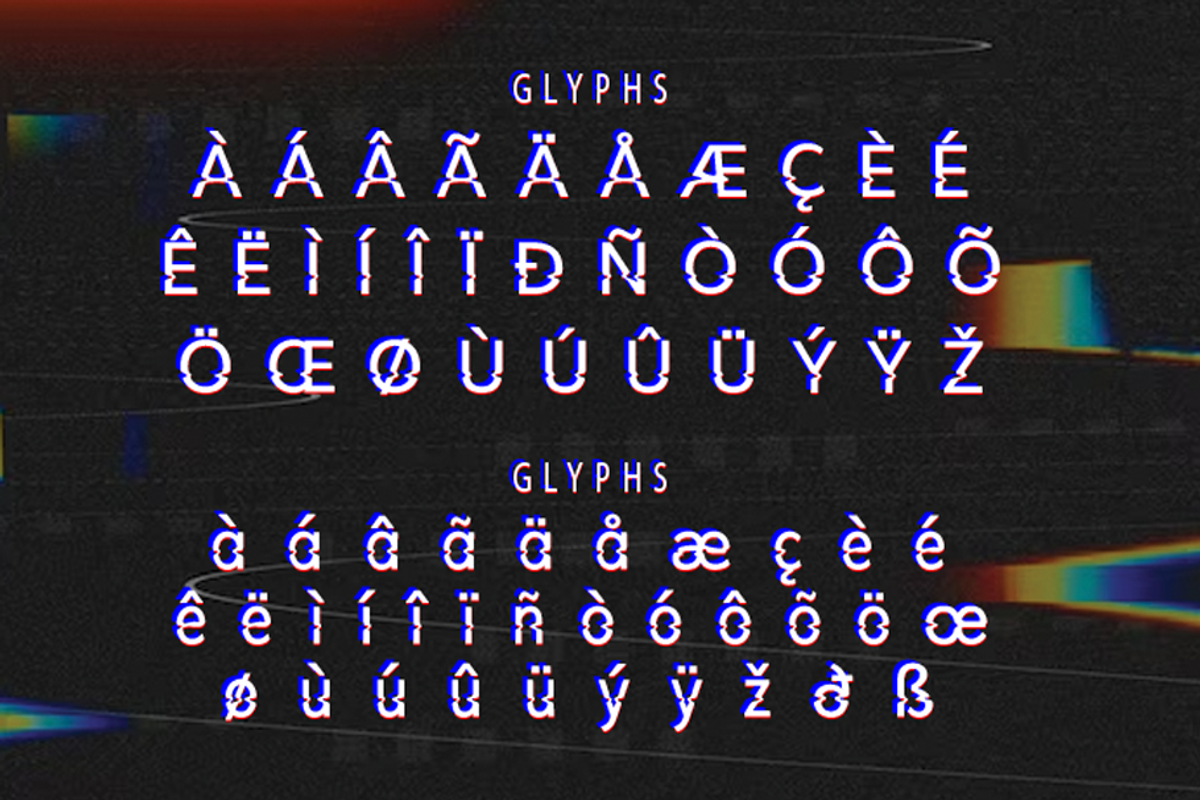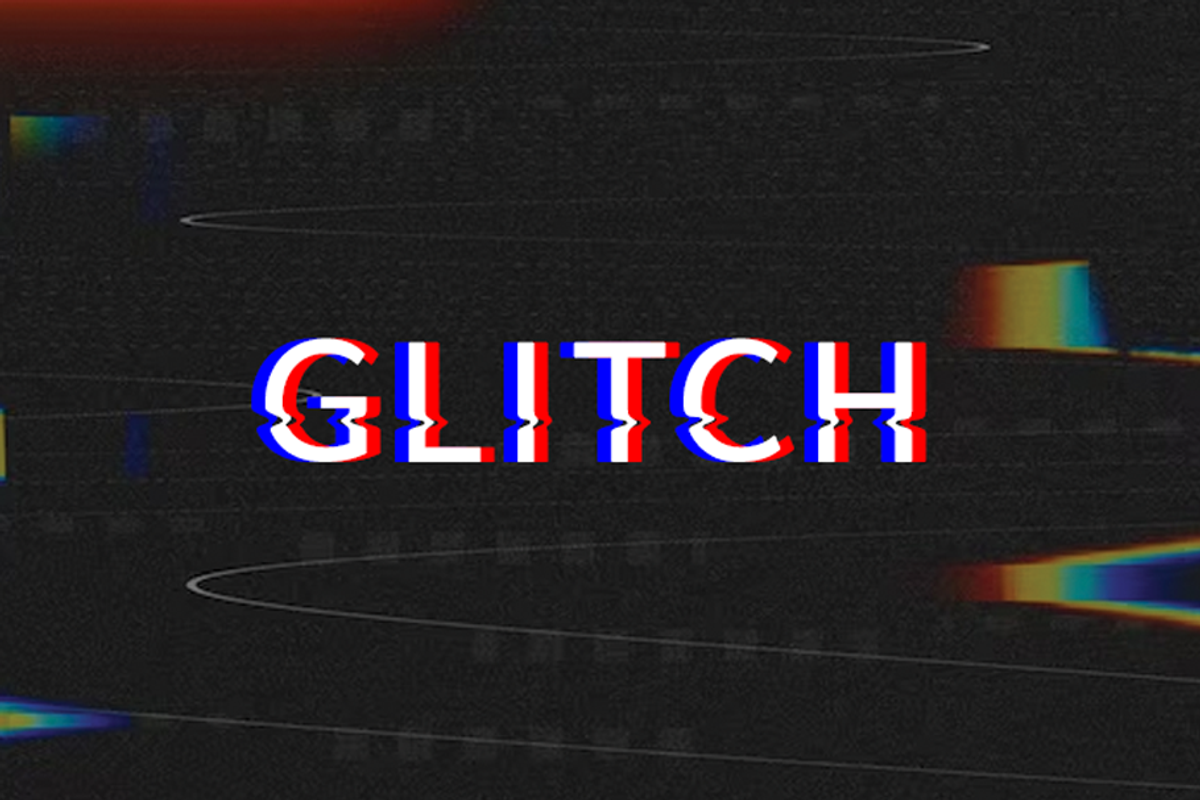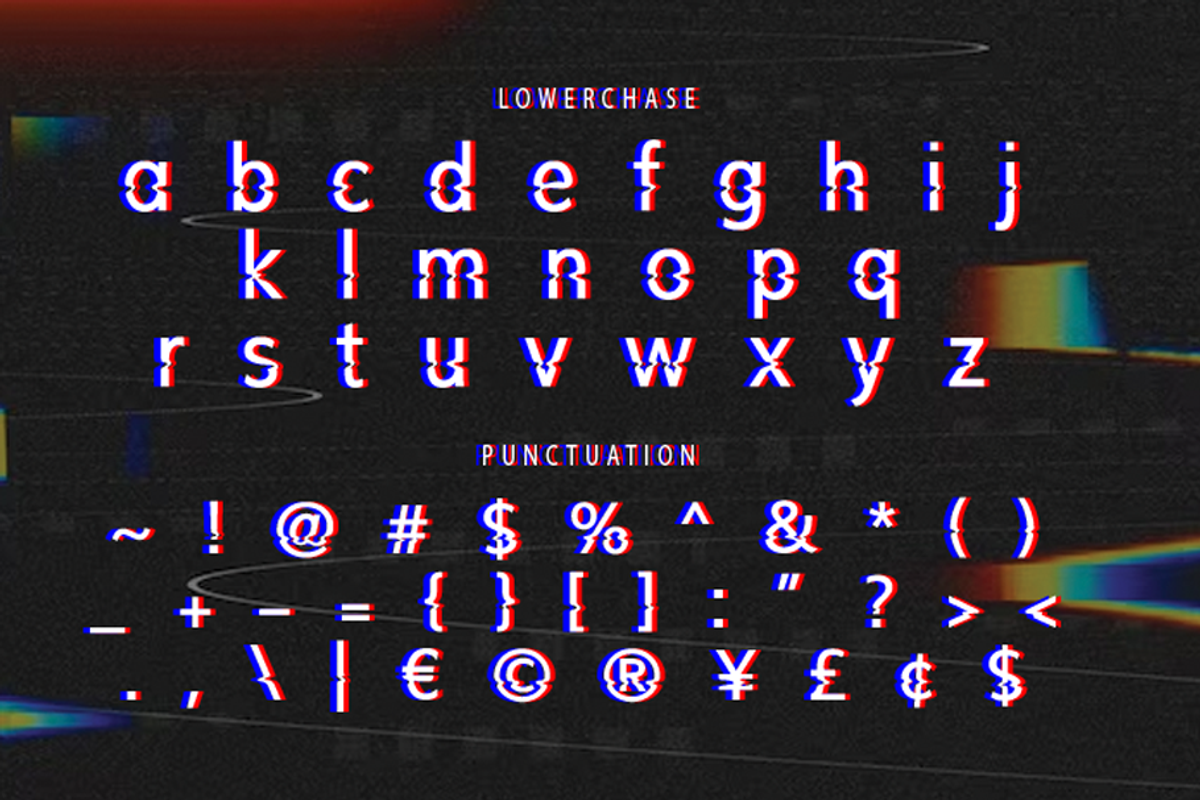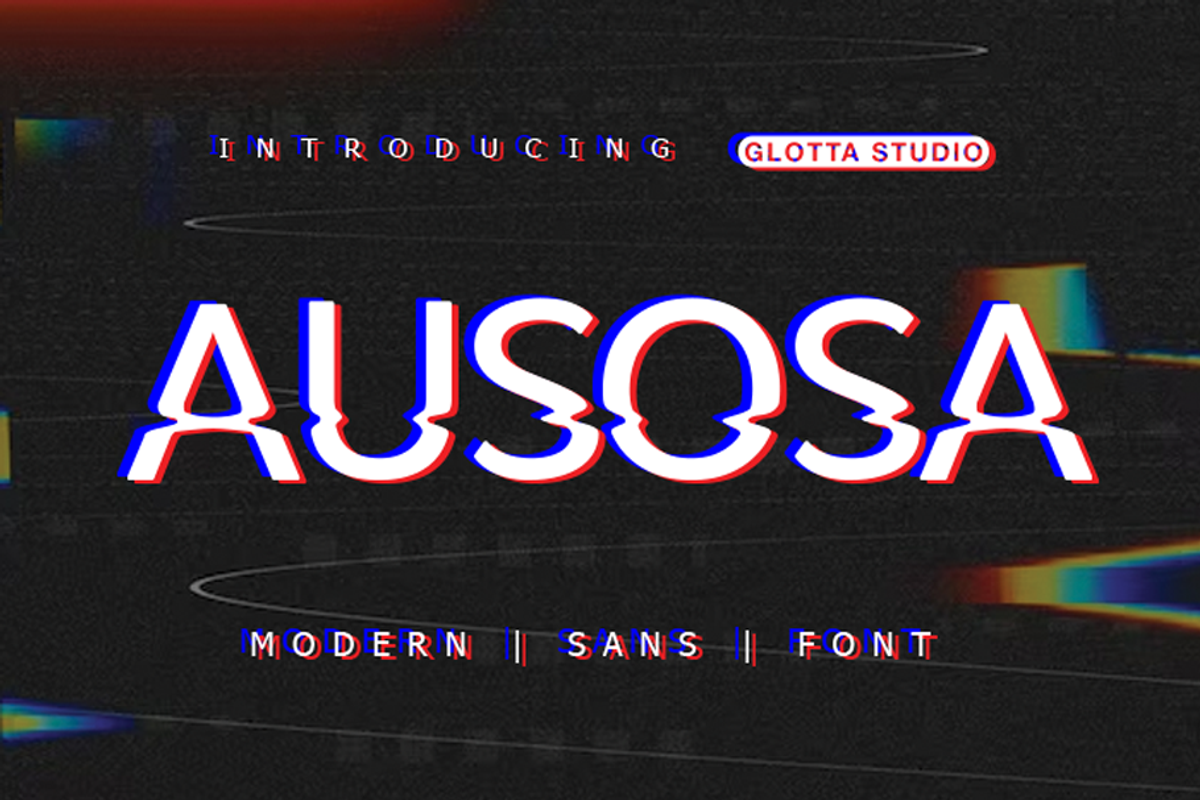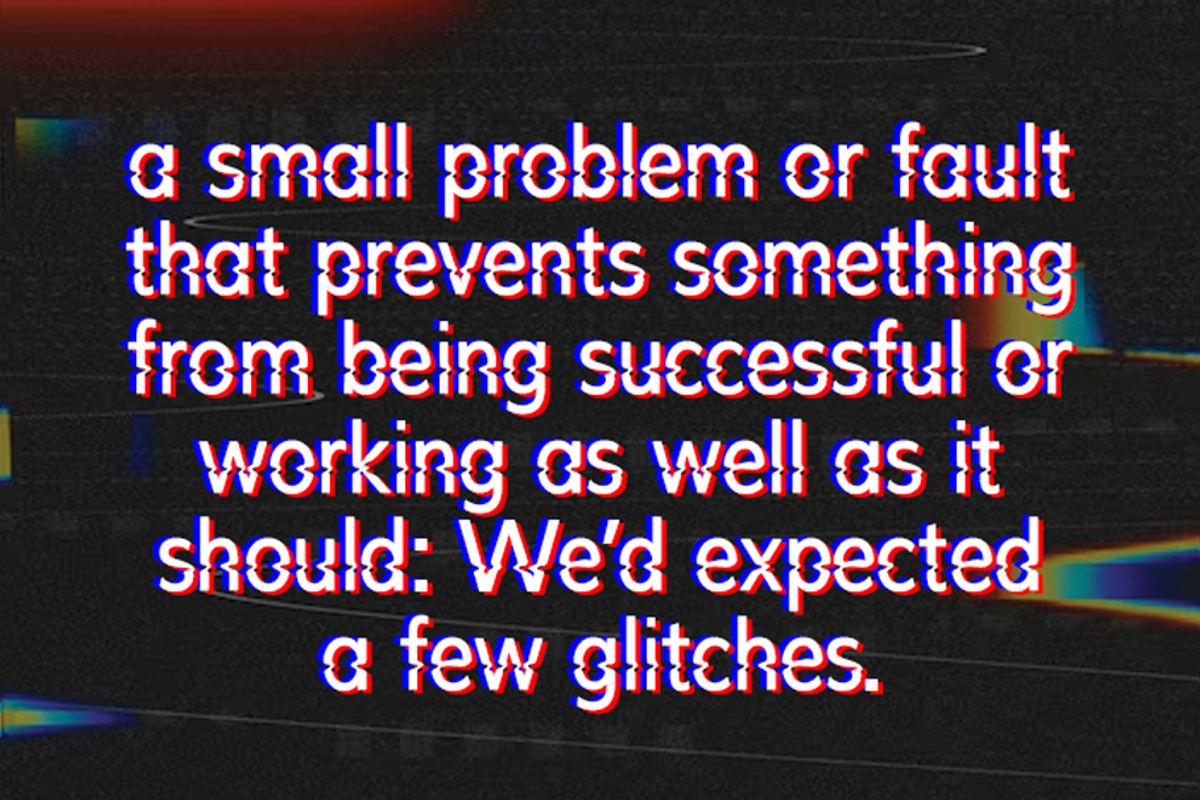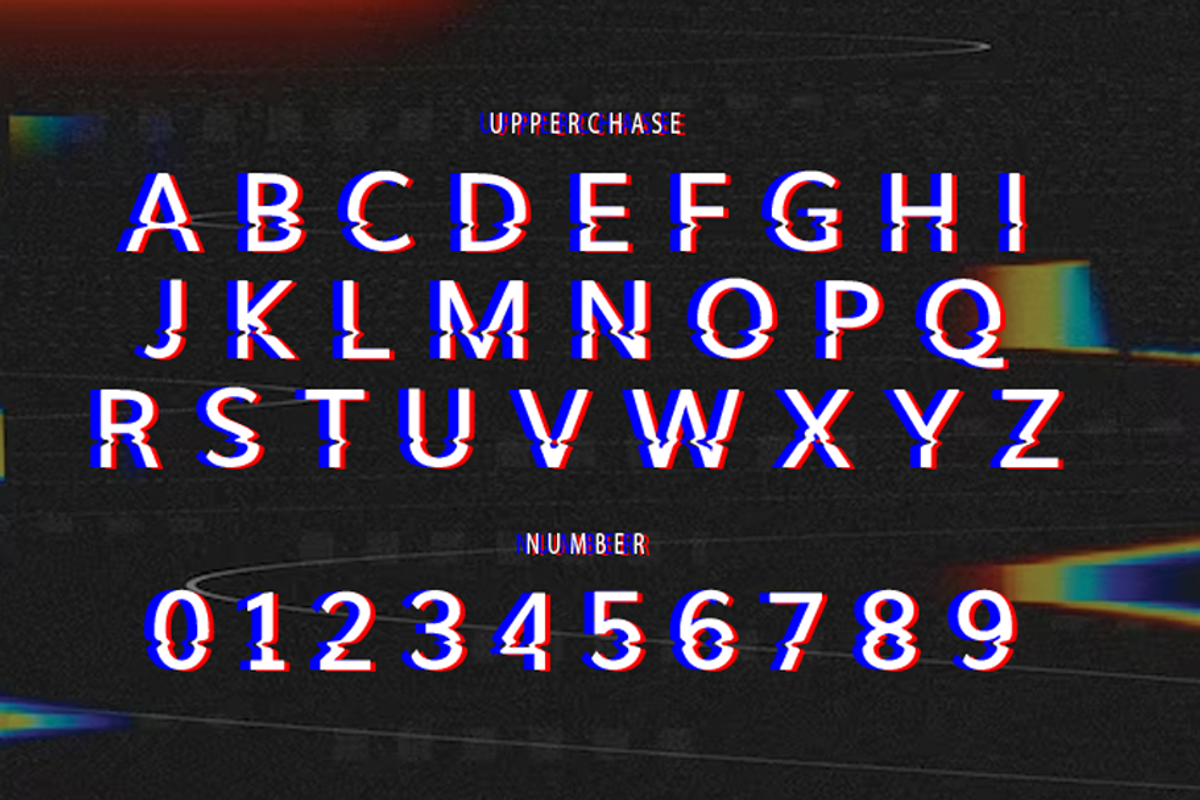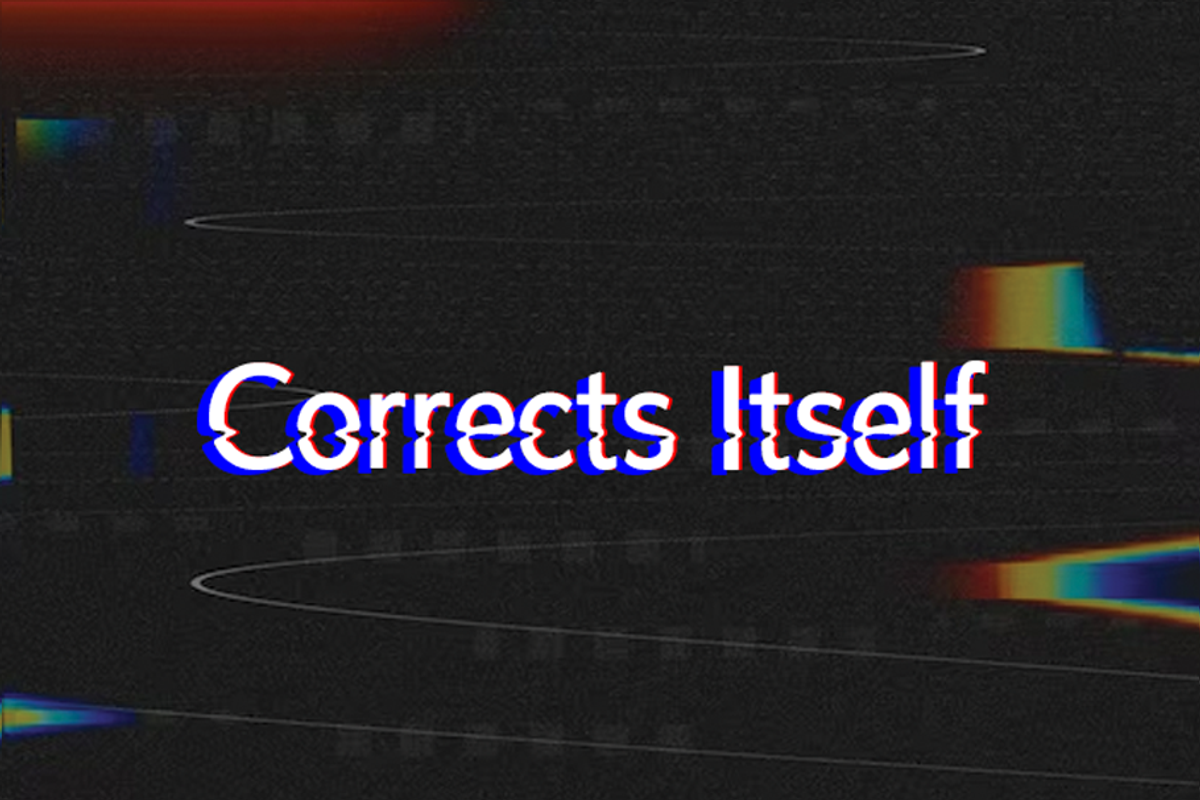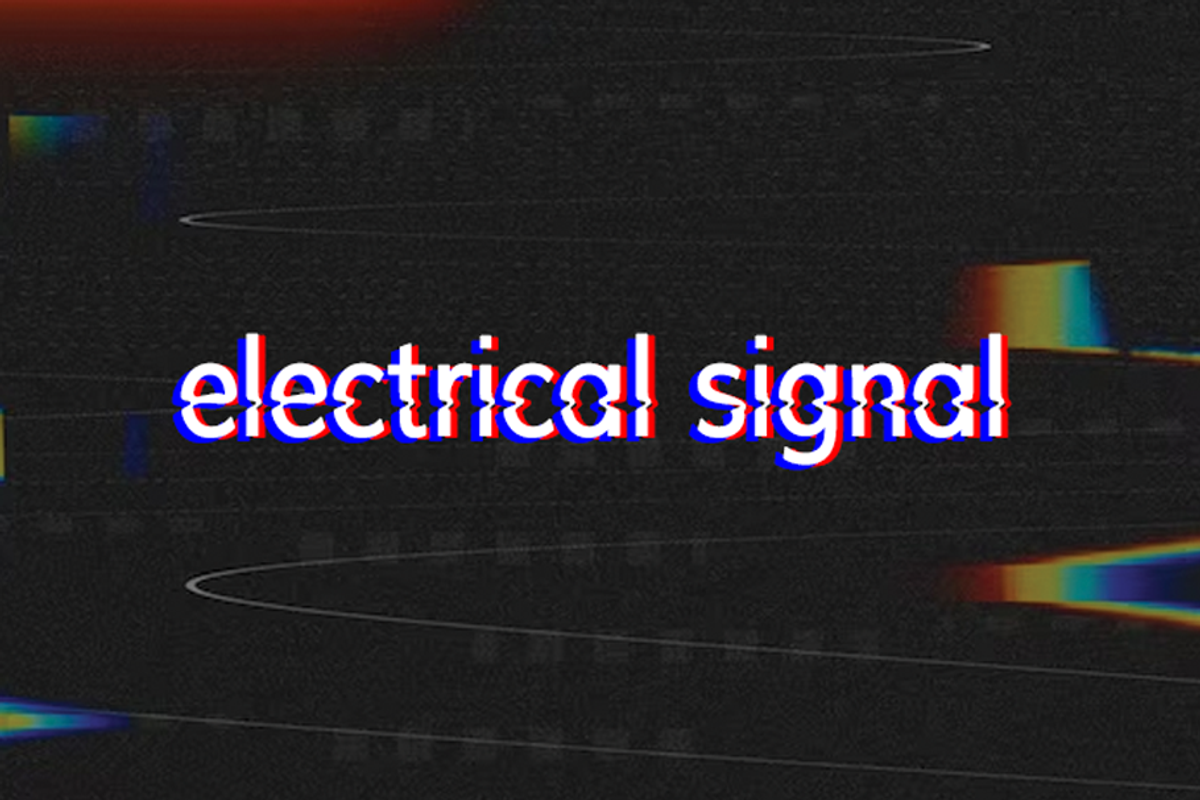
Ausosa #03
Ausosa is san serif font it’s looks classy, stylist and easy to use. Ausosa is the great choice for watermark on movie industry, poster design, quotes, album cover, business card and many other design project. Ausosa is here to make your work or your business to high level!!! Features